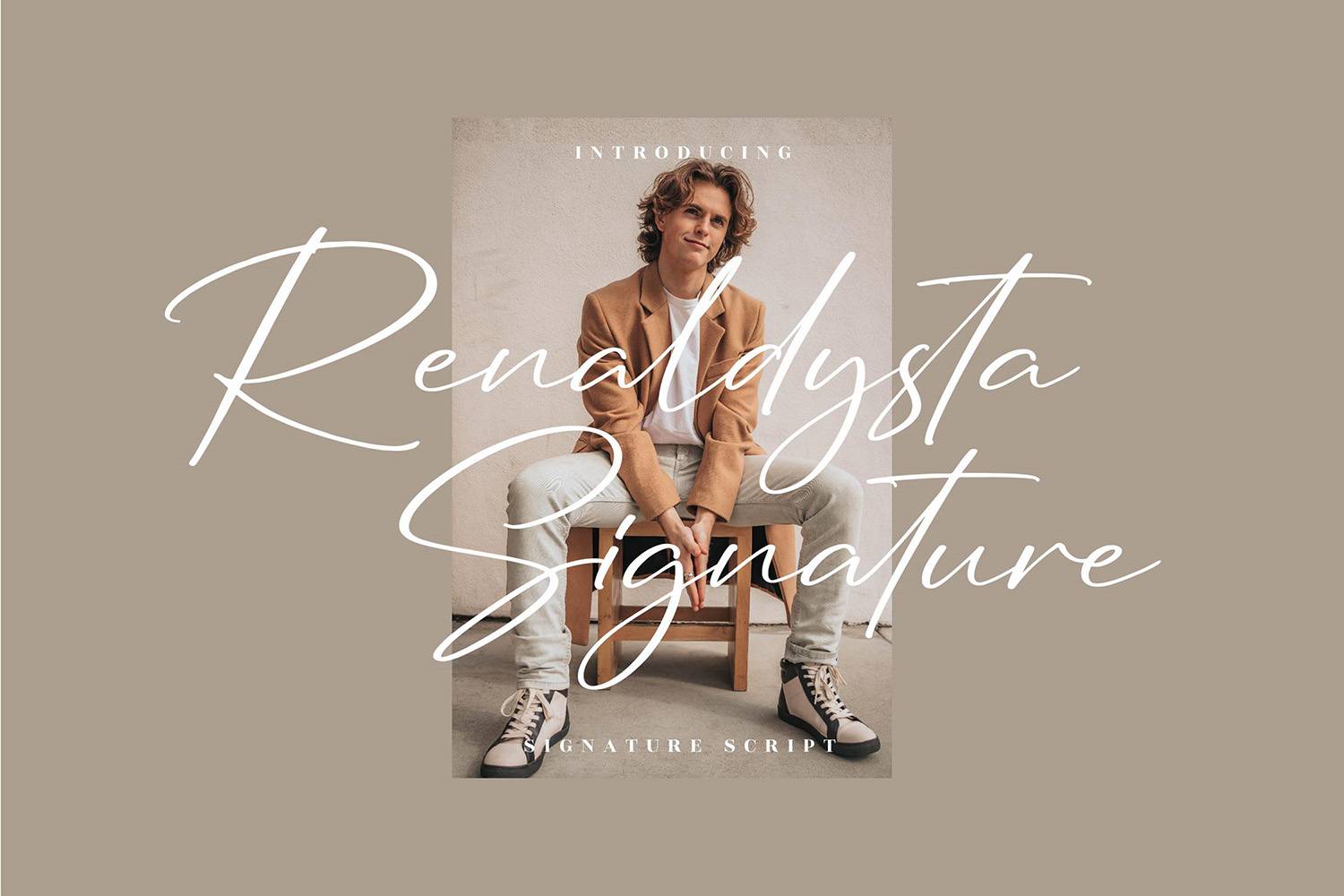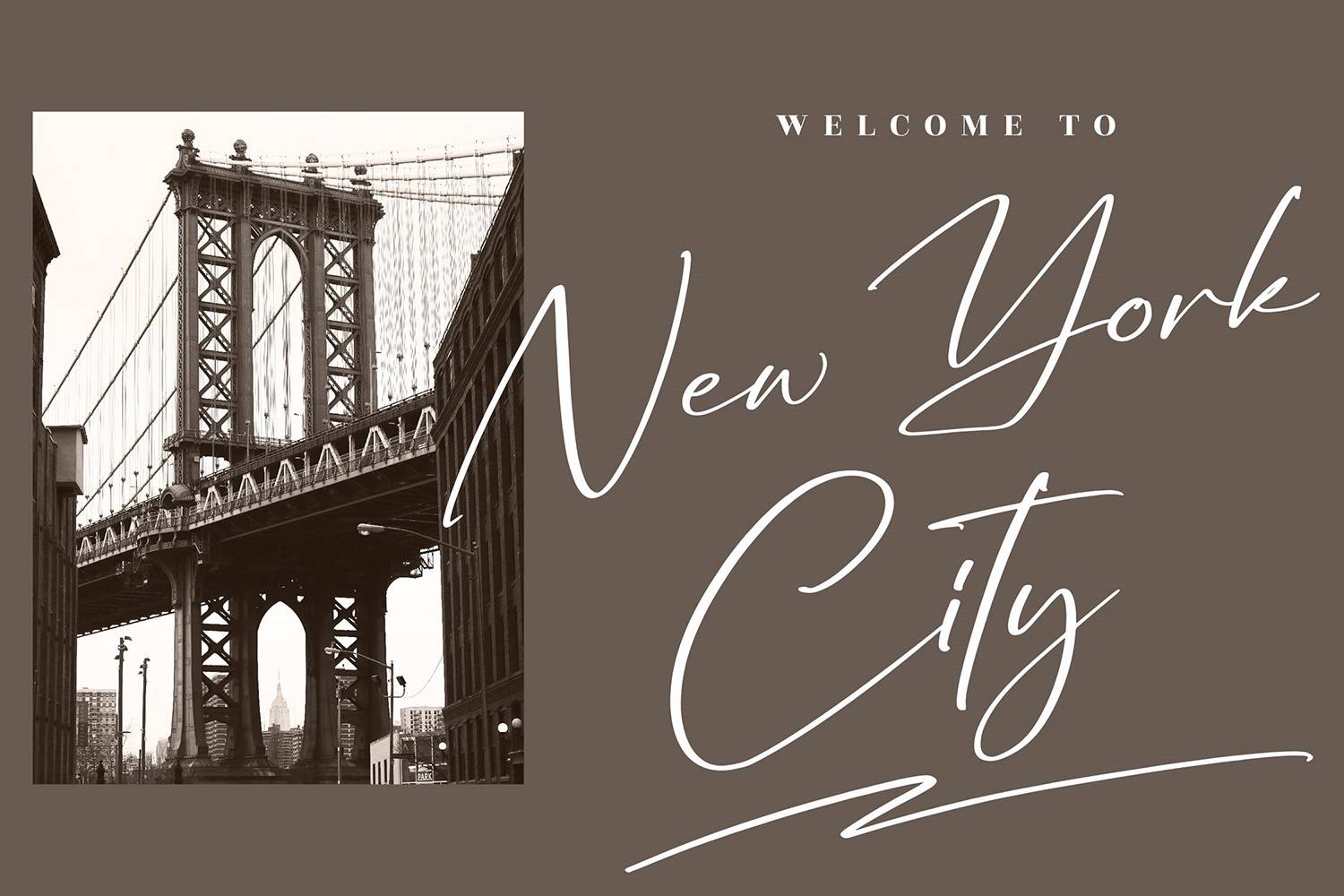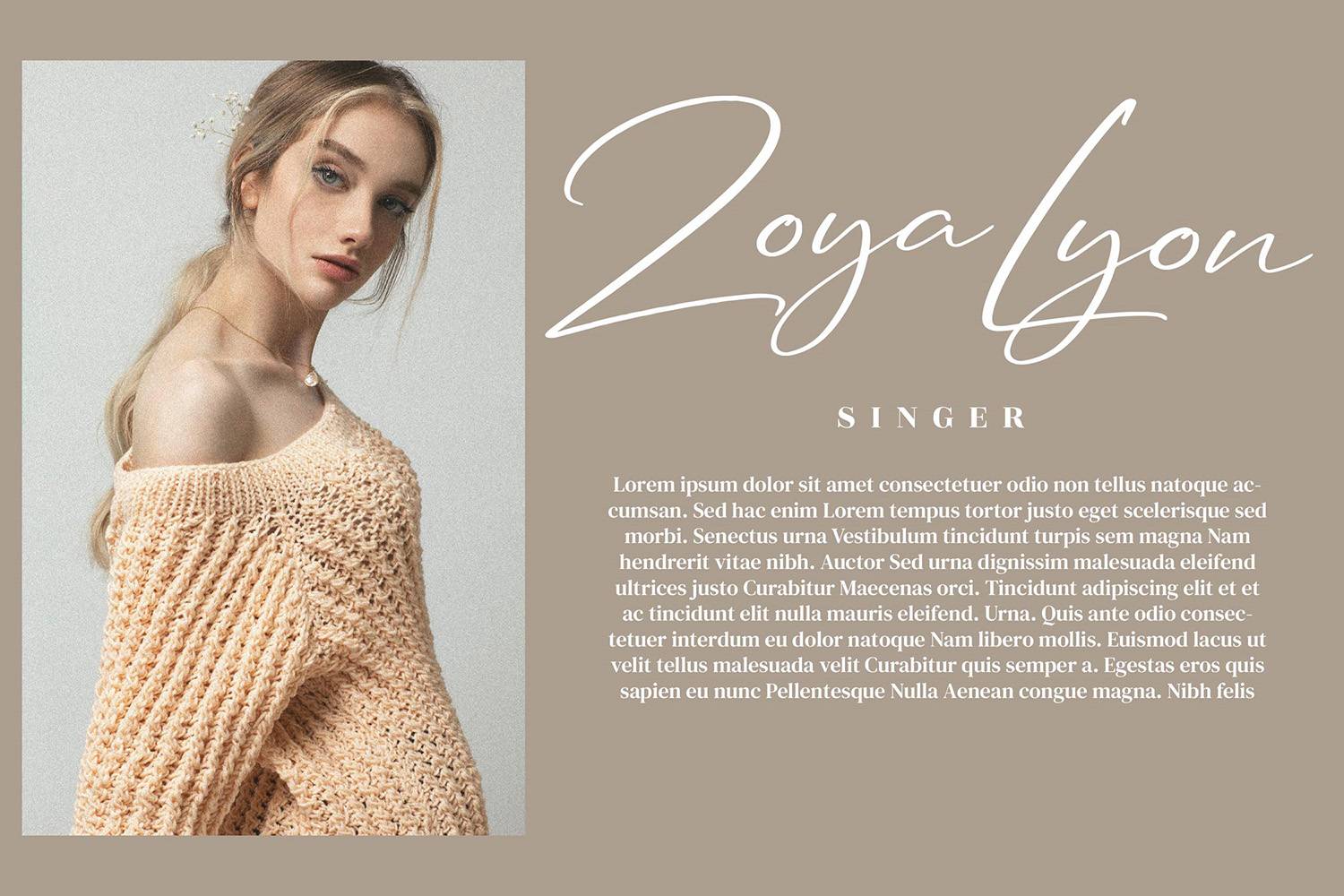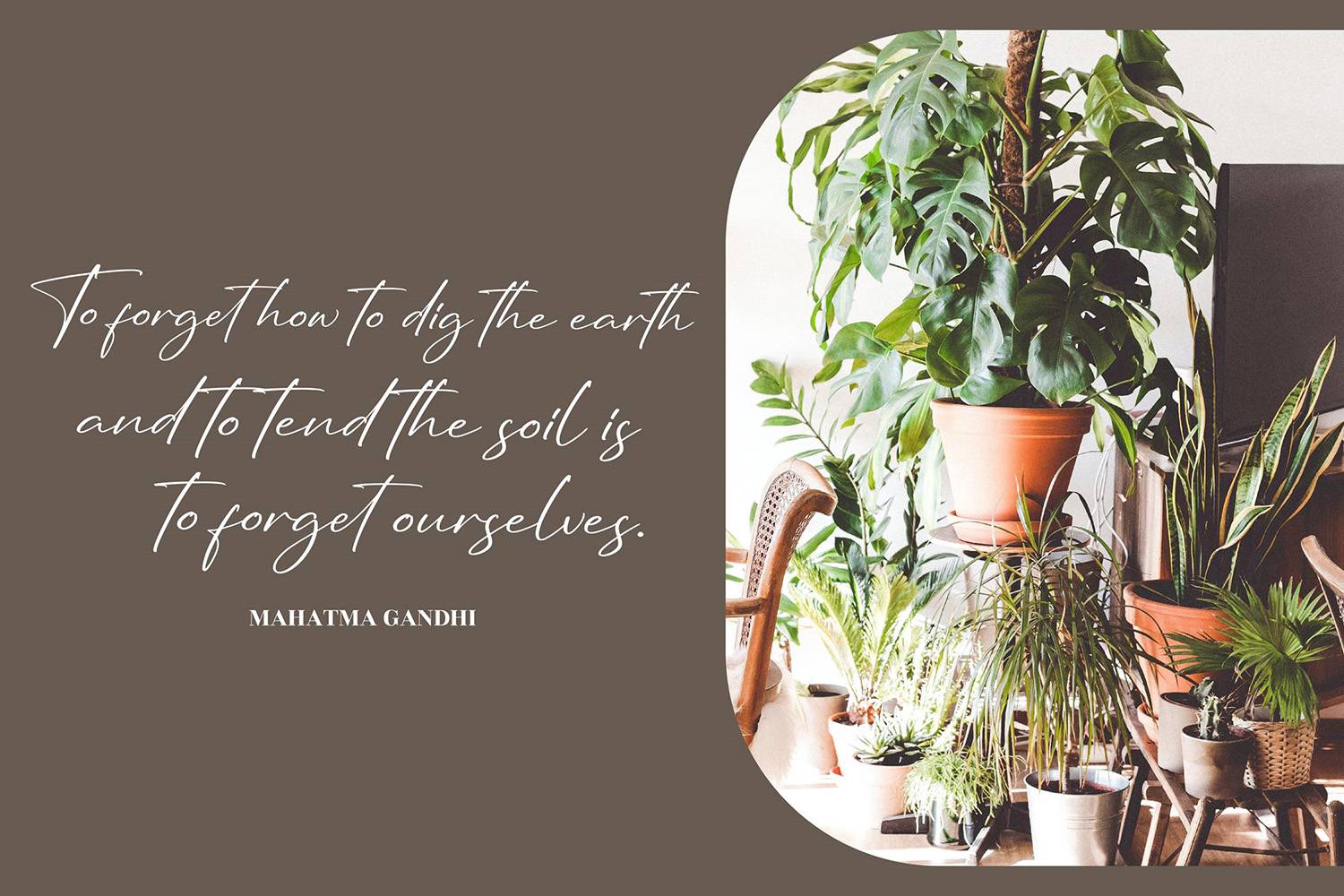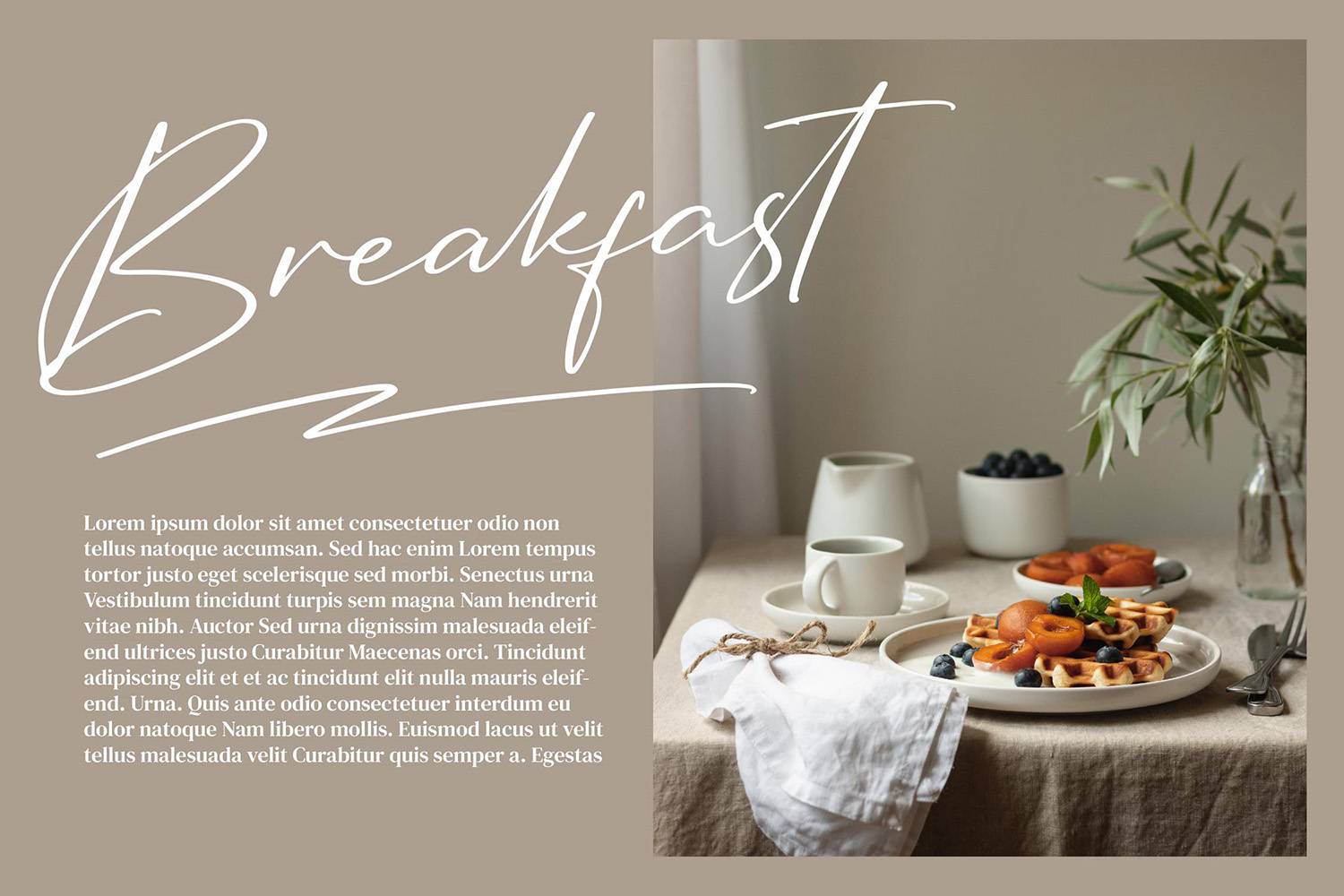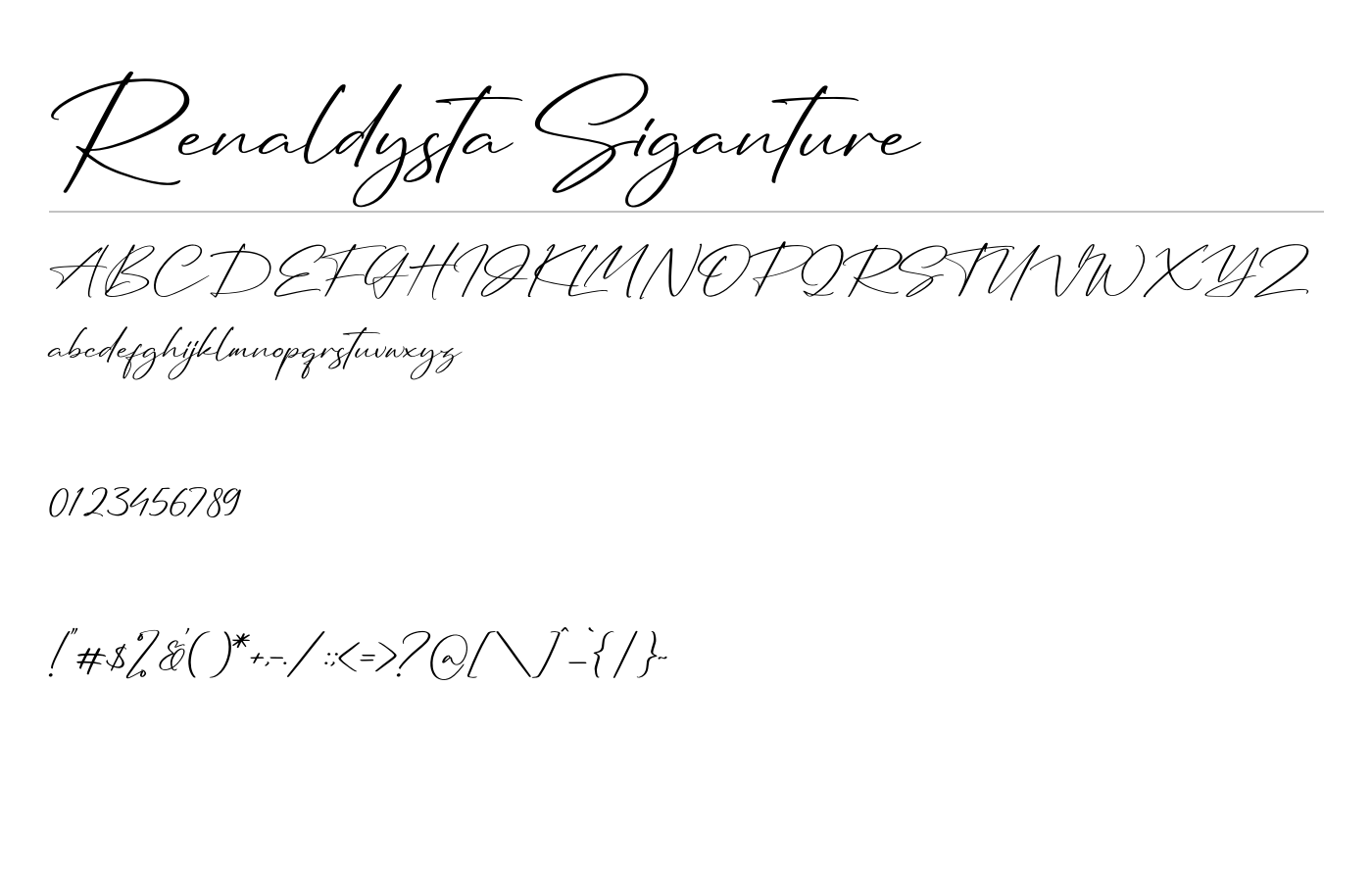
Renaldysta Signature is an elegant, thin script font that captures the natural flow of handwritten signatures with its graceful, slightly slanted letterforms and delicate strokes. This stylish font exudes sophistication and personal charm, making it perfect for luxury branding, invitations, logos, and other projects where a refined, artistic touch is desired. Its airy, fluid design works especially well in headlines or decorative accents, adding a modern yet timeless feel.
Renaldysta Signature Font
About Renaldysta Signature Font